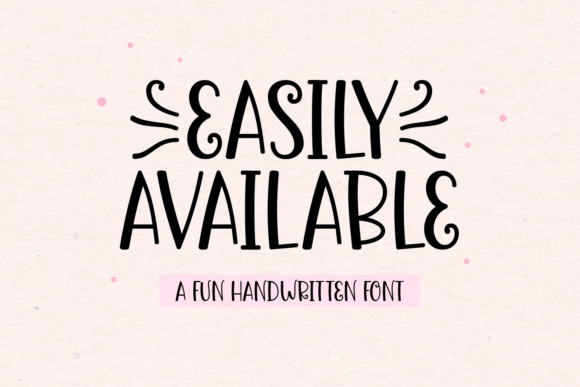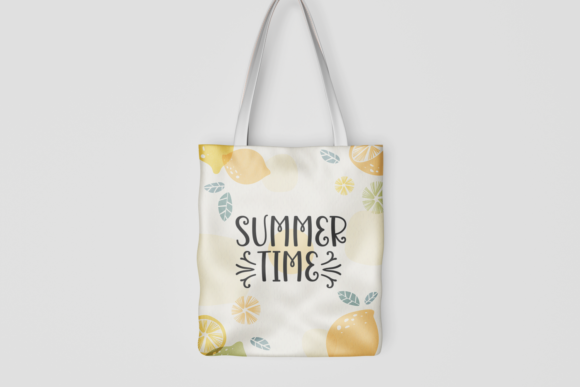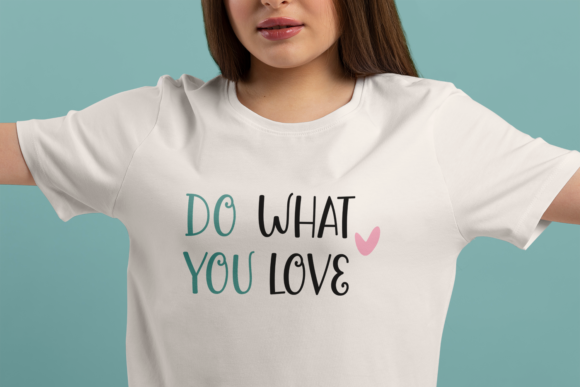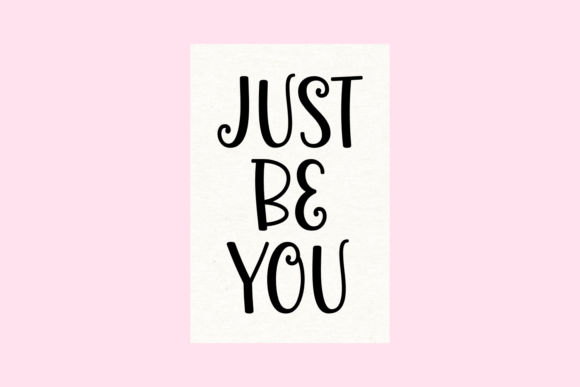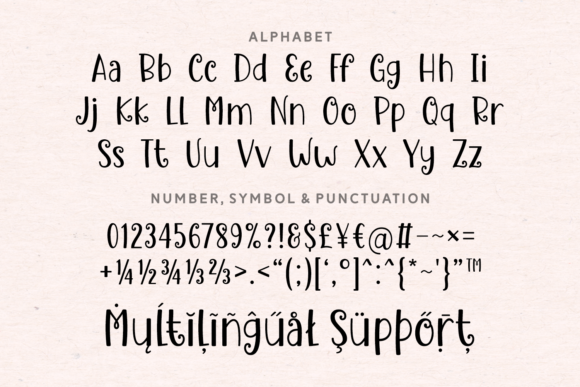
Easily Available Font
About Easily Available Font
“Easily Available” is not just a font; it’s an expression of creativity that brings a breath of fresh air to your design projects. With its lovely handwritten style, playful characters, and an overall fun vibe, this typeface adds a touch of whimsy and charm to any creative endeavor, making it a versatile and delightful choice for a wide range of applications.
The handcrafted nature of “Easily Available” is evident in every stroke and curve of its characters, giving your text a unique and personalized feel. The playful elements in the design infuse a sense of joy and friendliness, making it particularly suitable for projects that aim to connect with a diverse audience. Whether you’re working on invitations, greeting cards, posters, or social media graphics, this font effortlessly adapts to your creative vision.
One of the standout features of “Easily Available” is its versatility. Its easy readability ensures that your message is communicated effectively, while the fun and dynamic vibe make it suitable for almost any creative idea you have in mind. The font becomes a canvas for your imagination, allowing you to explore various design concepts without sacrificing clarity or visual appeal.
Imagine using “Easily Available” for cheerful birthday invitations that set the perfect tone for a celebration. Picture it on a poster promoting a local event, where its playful characters capture the attention of passersby. Visualize the font enhancing your social media graphics, adding a touch of personality to your brand’s online presence.
In addition to its aesthetic appeal, “Easily Available” understands the importance of readability. The carefully crafted characters ensure that your audience can engage with your content effortlessly, striking a balance between style and clarity. This makes the font not only visually pleasing but also highly functional across different mediums and projects.
As you embark on your creative journey, let “Easily Available” be your go-to companion. Allow its fun vibe and playful characters to breathe life into your designs, creating an immersive experience for your audience. With this lovely handwritten font, your creative ideas are bound to shine with a unique and delightful flair.